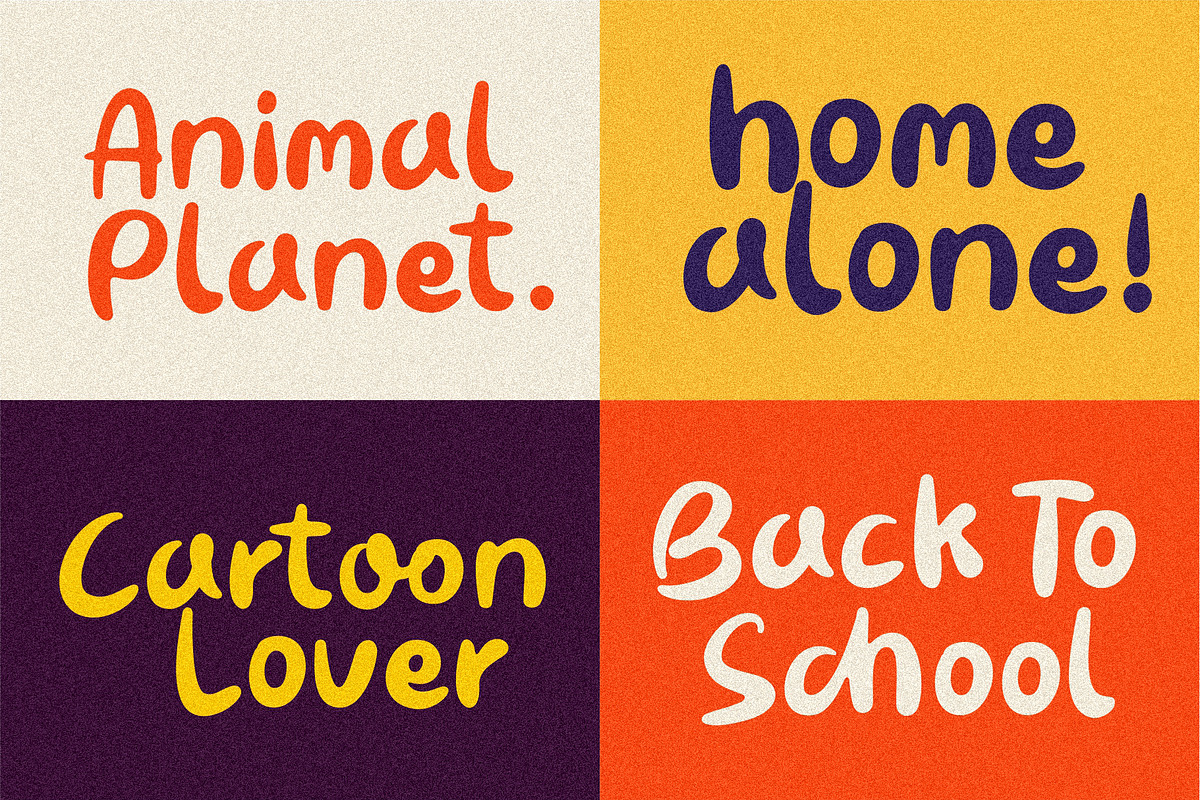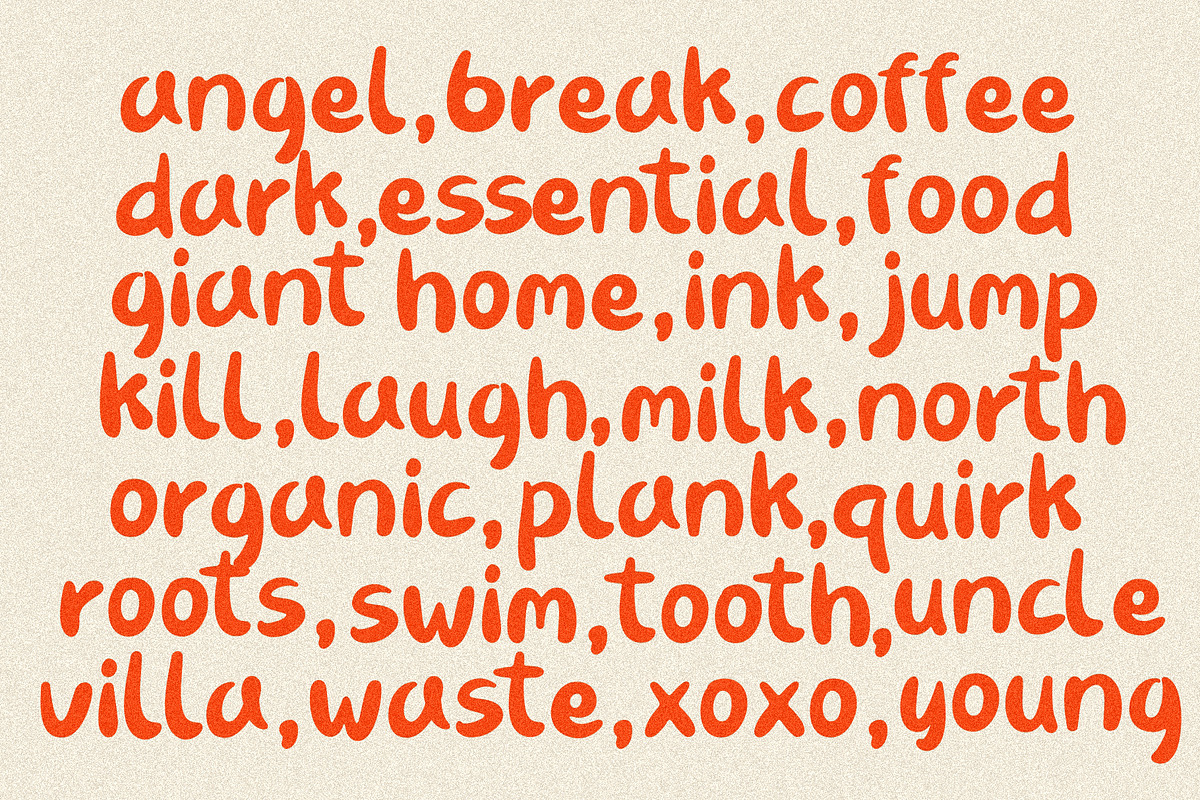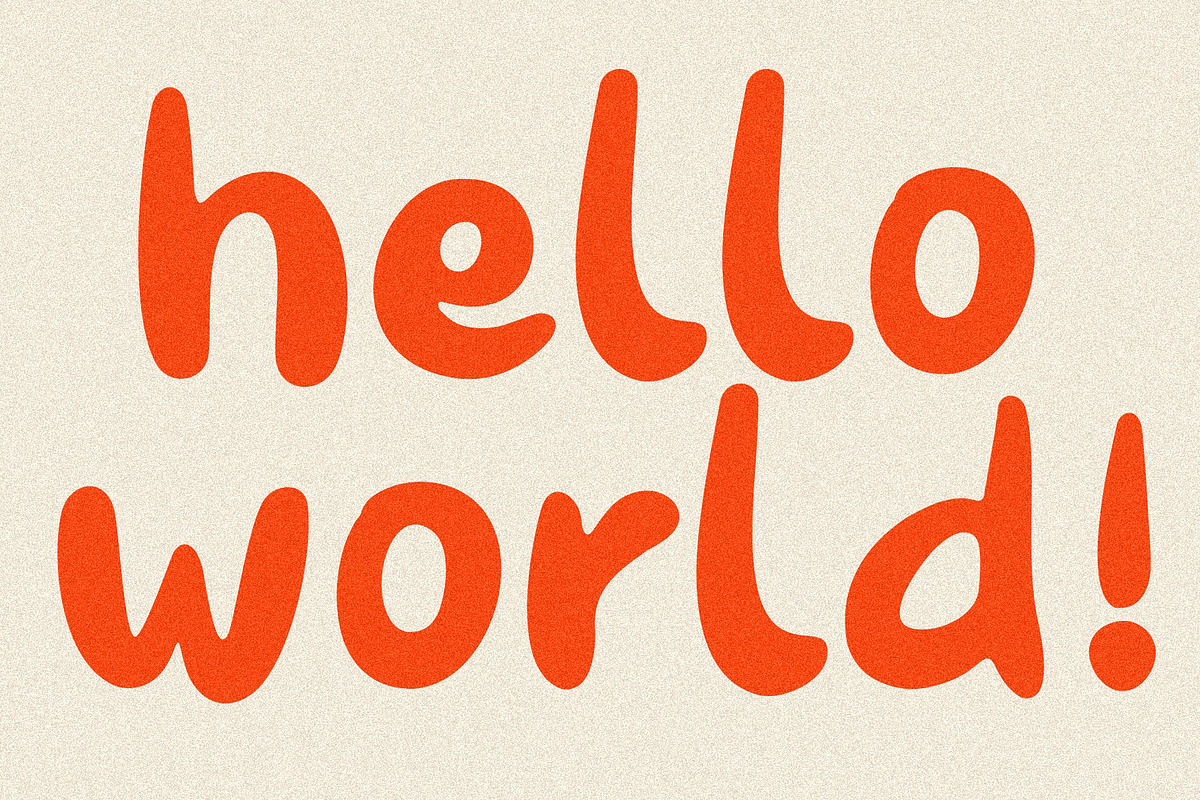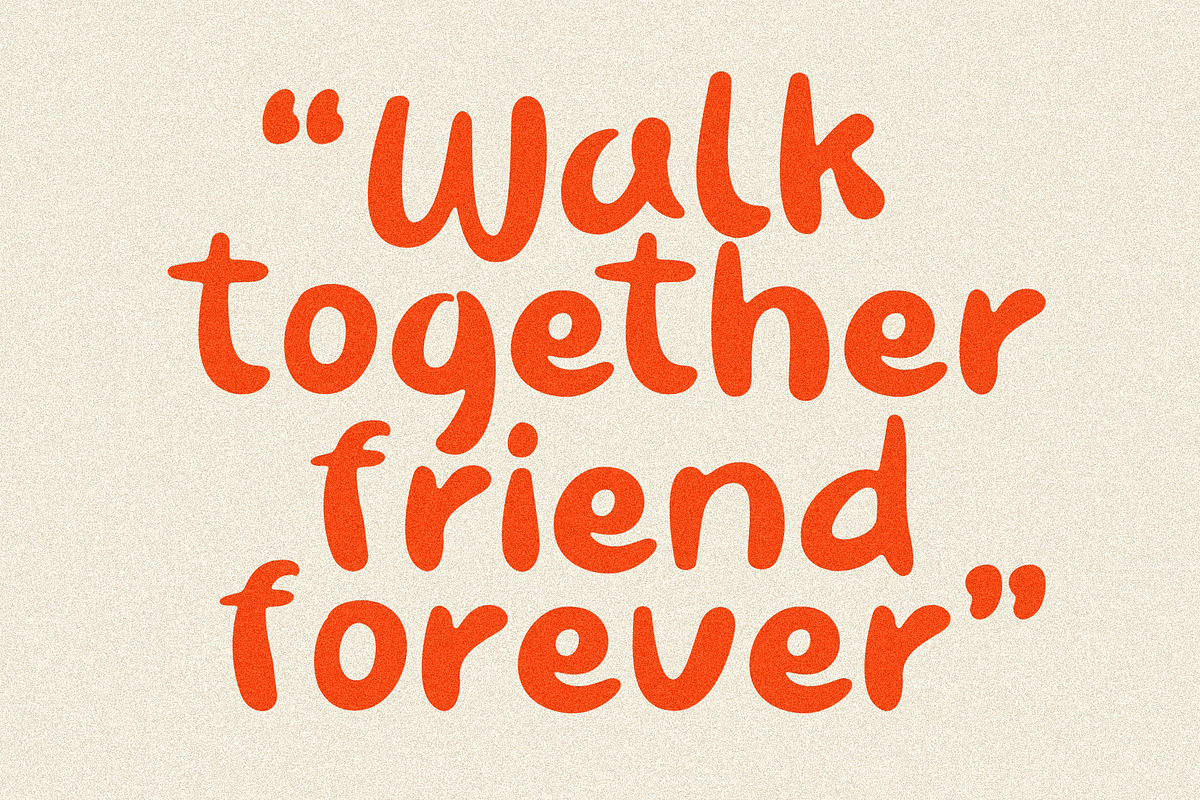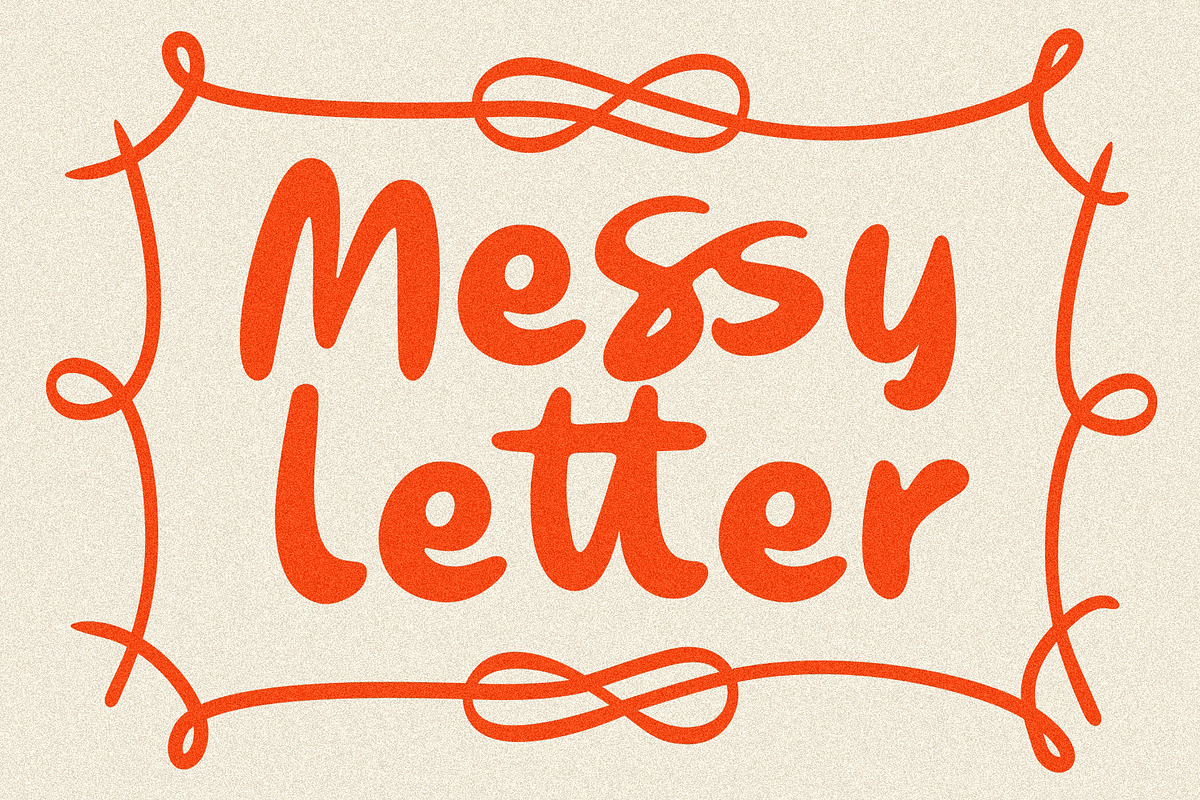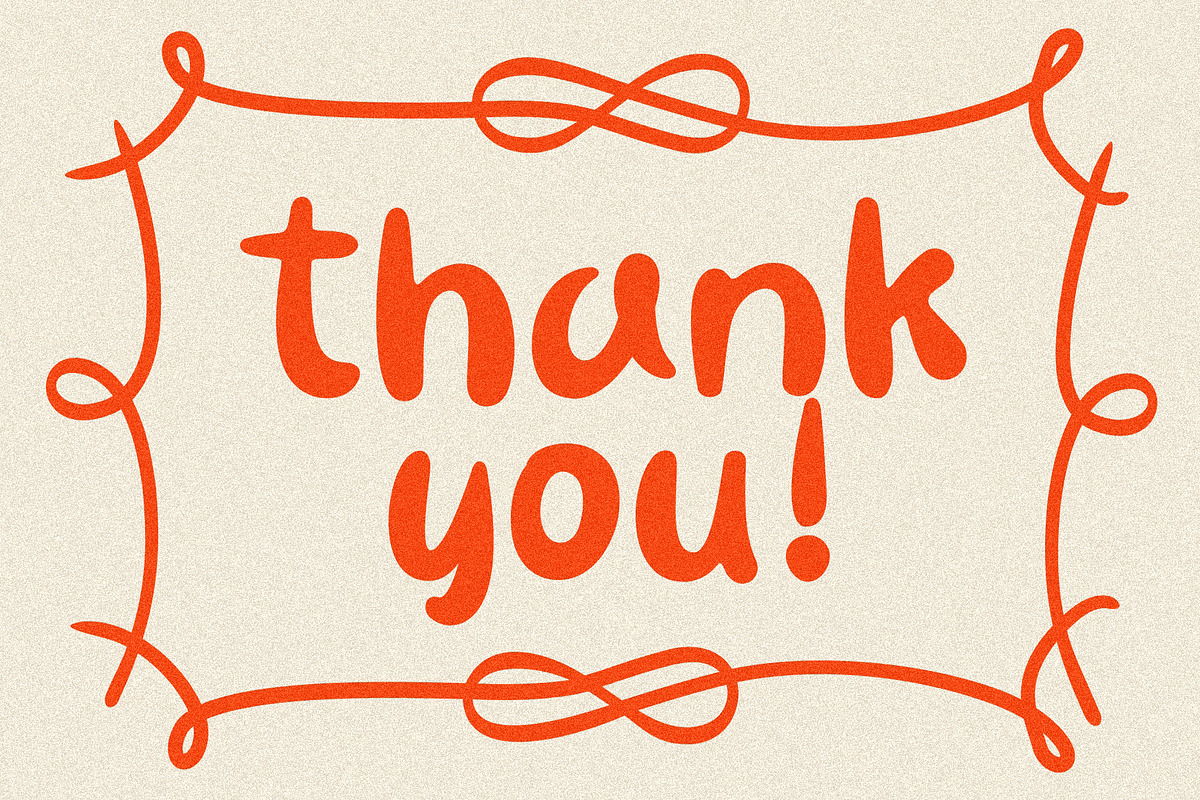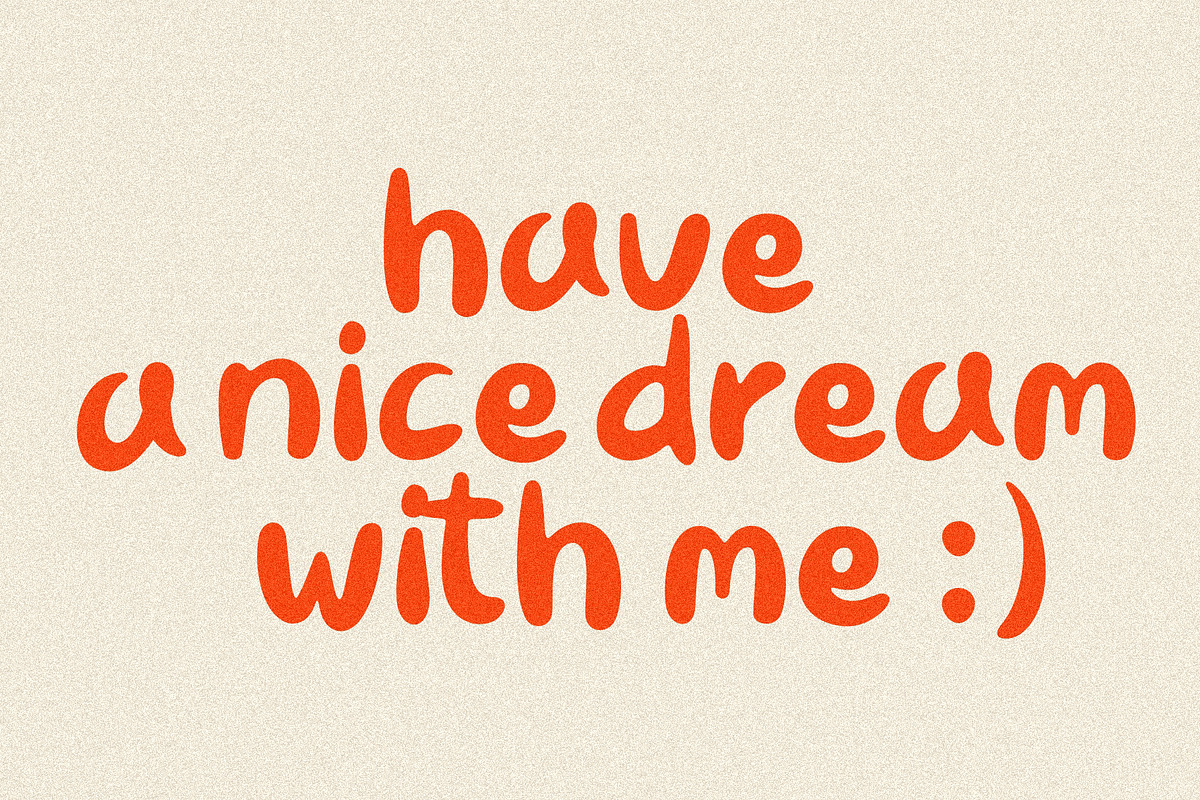
Messy Letter
Messy Letter is a carefree handwritten font that gives your designs major aesthetic vibes. It’s got that natural, hand-drawn feel kinda like a love note or a cute café chalkboard.
Ideal for branding, packaging, merch, and anything that needs a touch of warmth and ease this font brings relaxed charm with a modern twist.